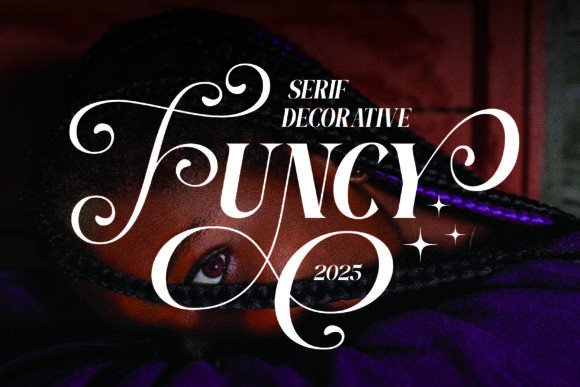
Introducing Funcy Font: Elevate Your Designs with Sophistication and Elegance
In the world of typography, a font can make or break the visual appeal of a design project. If you’re looking for a typeface that exudes charm, elegance, and personality, look no further than Funcy Font. This sophisticated decorative serif font is designed to bring a touch of classic beauty and modern refinement to your creative projects.
What is Funcy Font?
Funcy Font, or FUNCY, is a decorative serif font that boasts an impressive array of features, making it perfect for a wide range of design applications. Its graceful swashes, ornamental details, and bold letterforms work in harmony to create a truly unique and eye-catching typeface.
Whether you’re looking to create standout headlines, branding, packaging, invitations, logos, or signage, Funcy Font is the ideal choice. Its versatility and decorative flair make it an excellent addition to any design project that requires a touch of sophistication and elegance.
Key Features of Funcy Font
- Decorative Serif Font: Funcy Font features a classic serif design with decorative flair, making it perfect for projects that require a touch of elegance and sophistication.
- Graceful Swashes: The font includes a range of swashes that add a touch of elegance and refinement to your designs.
- Ornamental Details: Funcy Font features intricate ornamental details that add depth and visual interest to your designs.
- Bold Letterforms: The font’s bold letterforms ensure that your text stands out, making it perfect for headlines, titles, and other display text.
The Benefits of Using Funcy Font
So why choose Funcy Font for your design projects? Here are just a few benefits of using this sophisticated typeface:
- Elevate Your Designs: Funcy Font adds a touch of sophistication and elegance to your designs, helping you to create visually stunning projects that stand out from the crowd.
- Versatility: The font’s versatility makes it perfect for a wide range of design applications, from branding and packaging to invitations and signage.
- Customization: With its range of glyphs, swashes, and alternate characters, Funcy Font offers endless opportunities for customization, allowing you to create unique and personalized designs.
In conclusion, Funcy Font is a sophisticated decorative serif font that offers a unique combination of classic beauty and modern refinement. With its range of features, including graceful swashes, ornamental details, and bold letterforms, Funcy Font is perfect for designers looking to elevate their projects with elegance and sophistication.
- What is Funcy Font?: Funcy Font is a sophisticated decorative serif font designed to bring charm, elegance, and personality to your creative projects.